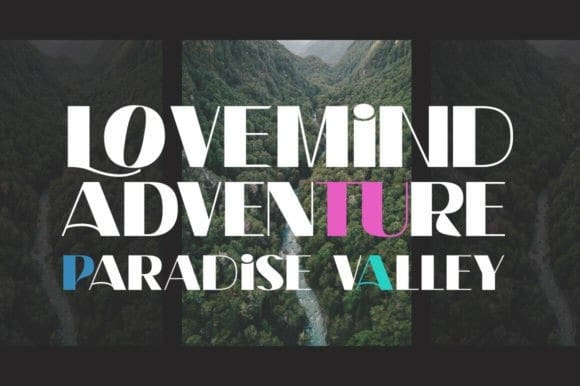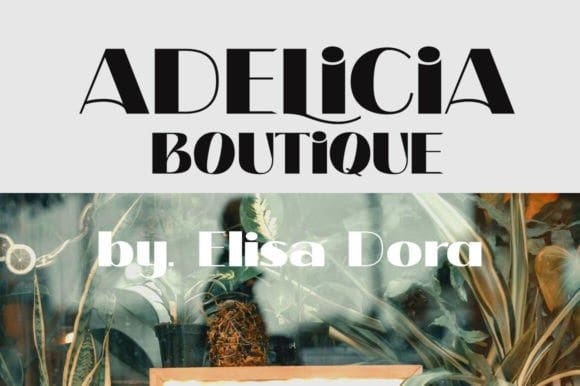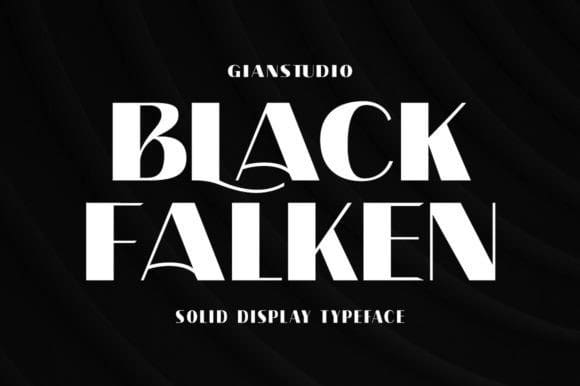
Black Falken Font
Black Falken Font is my new elegant serif font that will give your projects a touch of luxury and style. It’s perfect for logotypes, branding, monograms wedding invitations, blog headlines, and more.